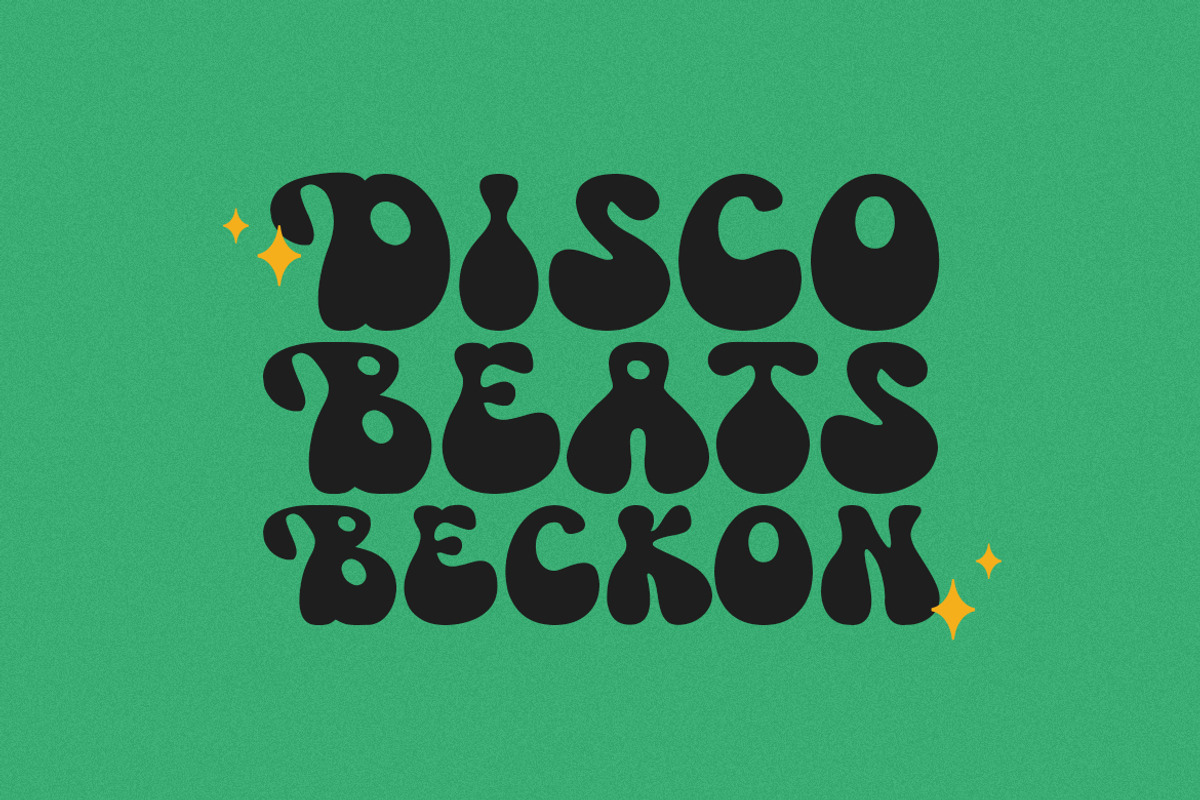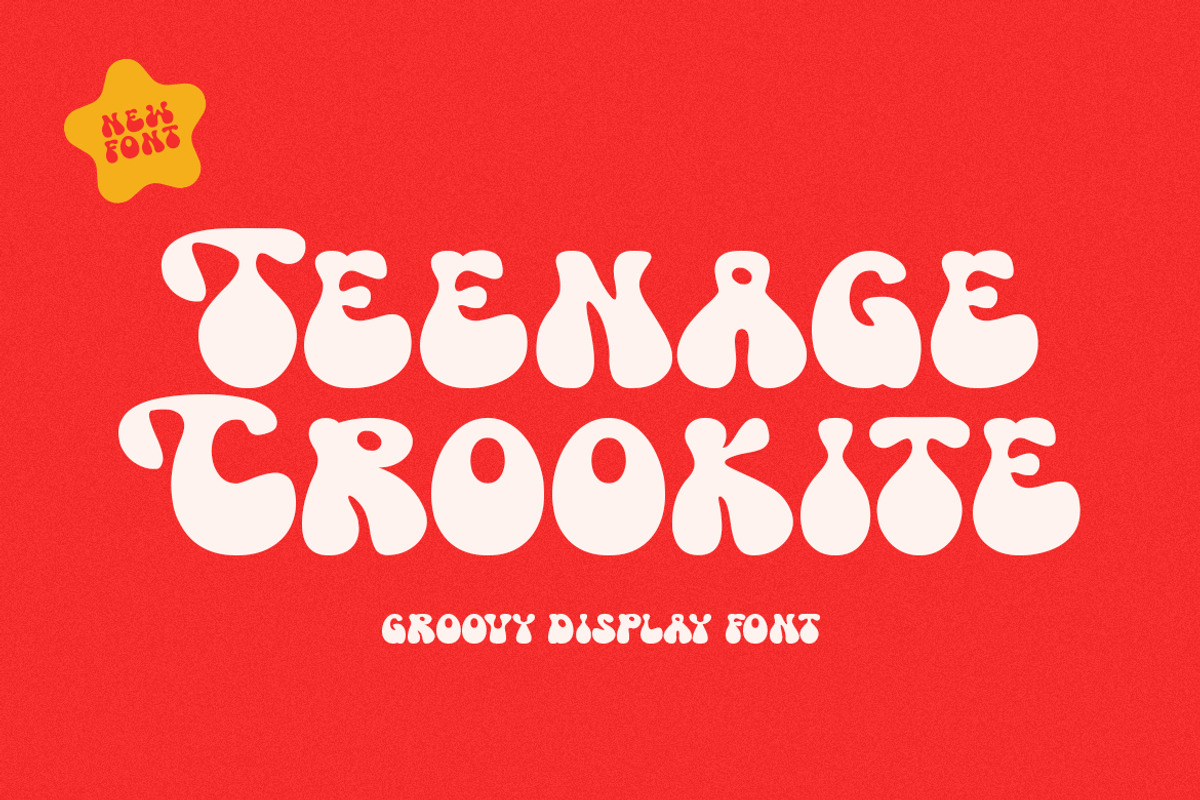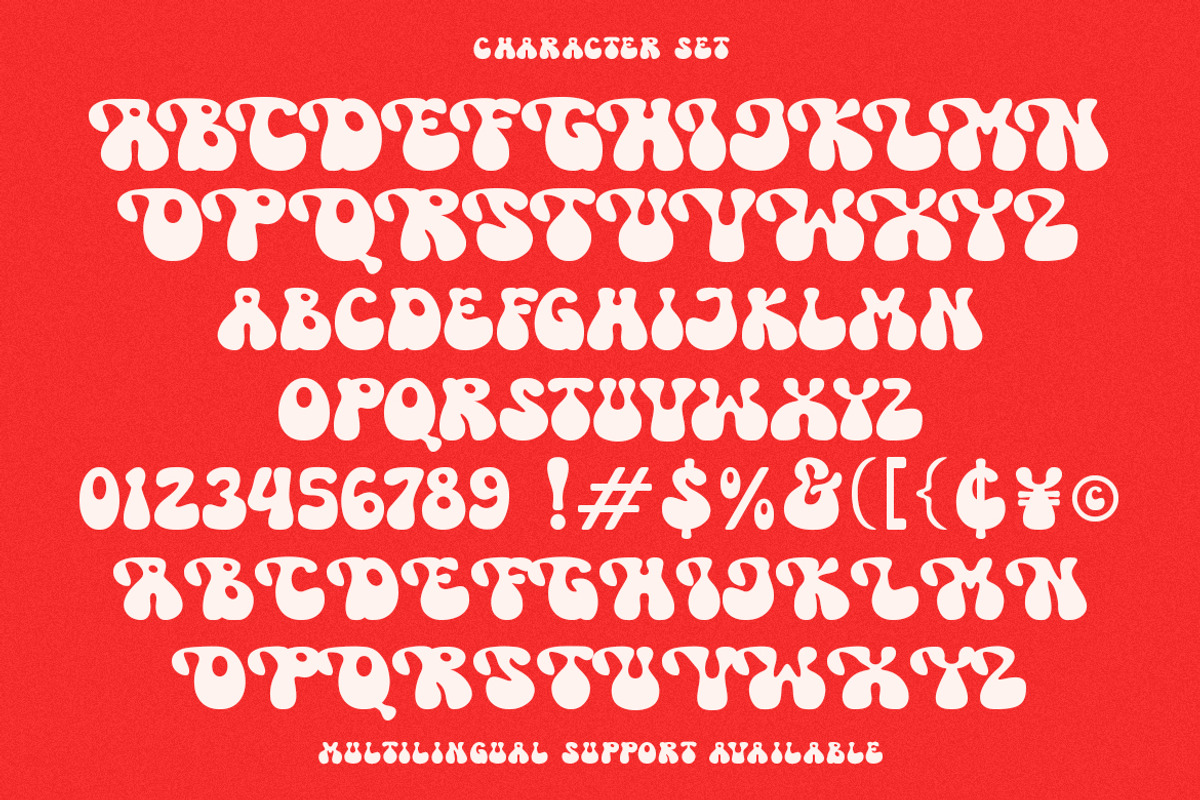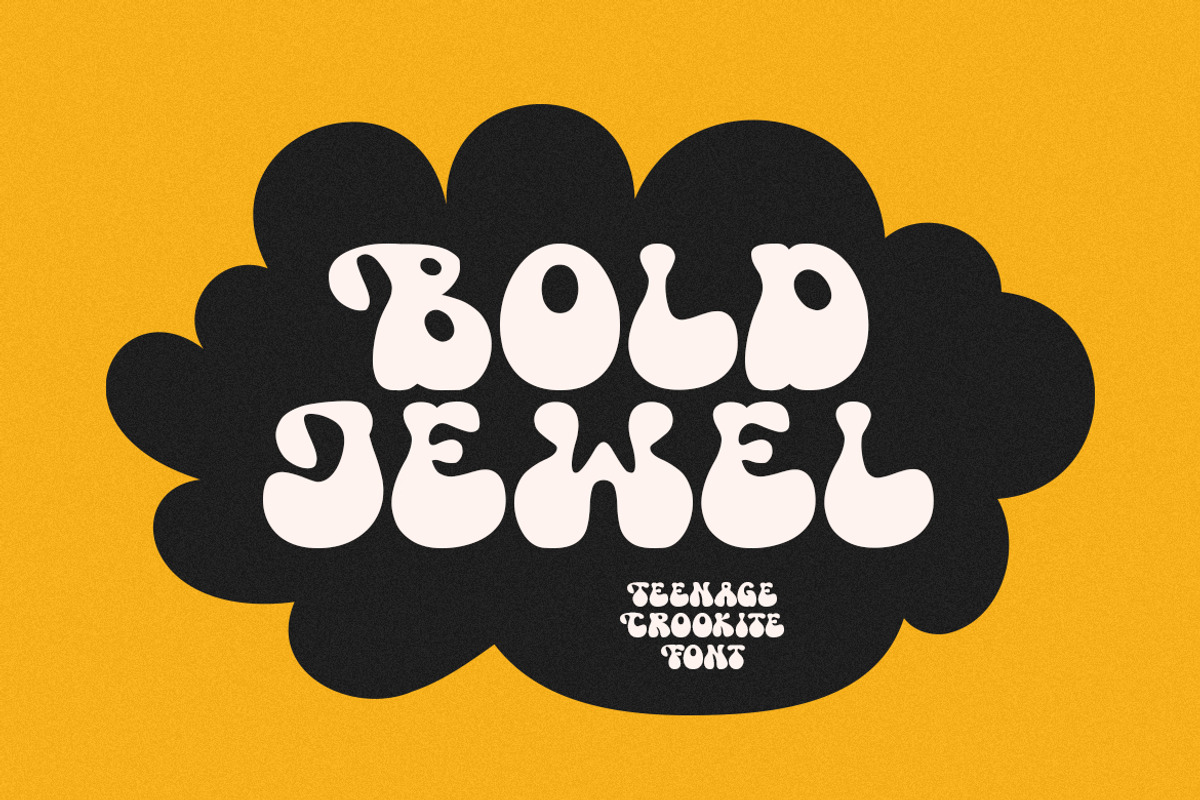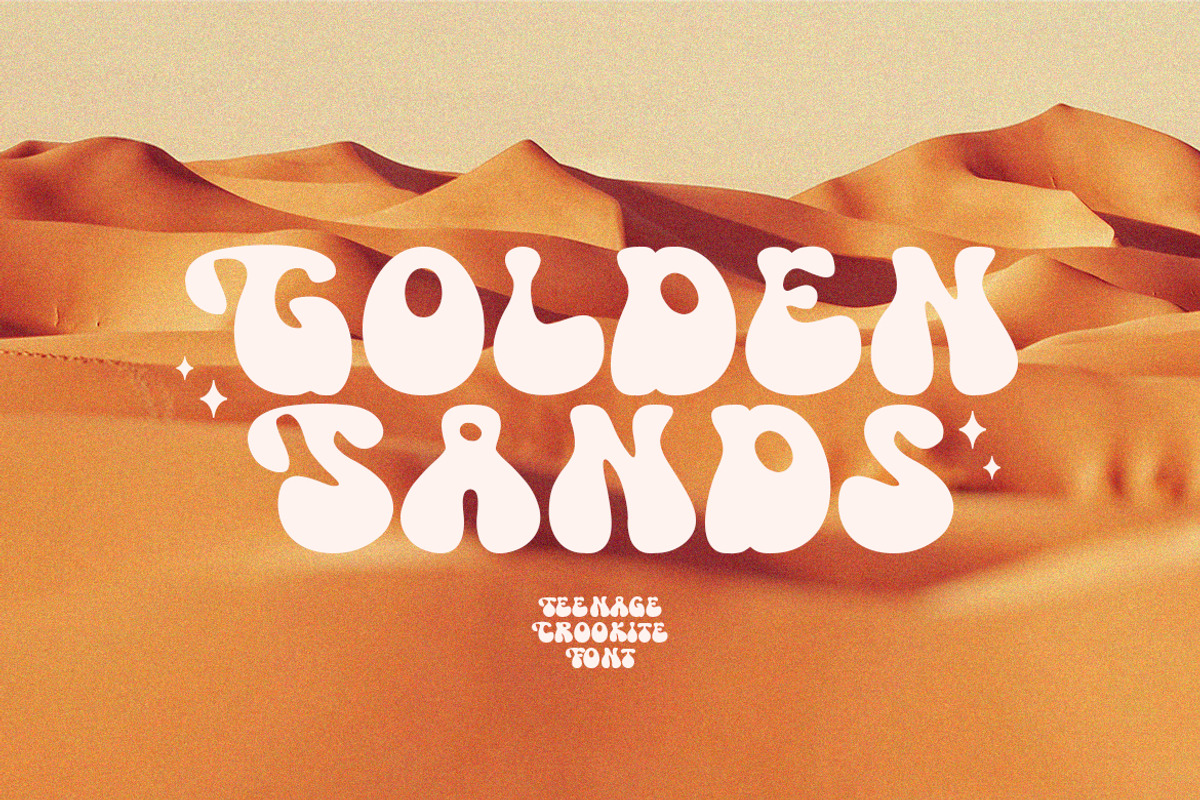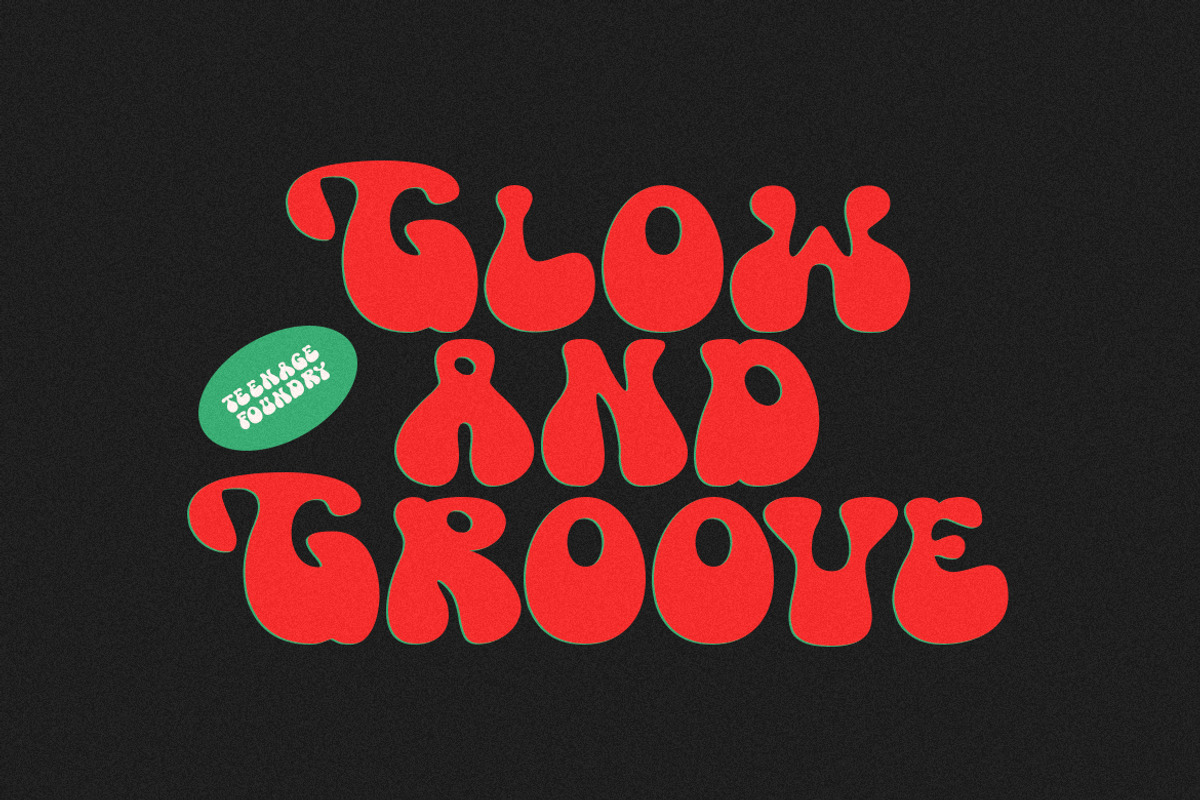
Teenage Crookite
Teenage Crookite – Groovy Display Font By Teenage Foundry
Introducing our latest font creation – a groovy typeface that’s sure to transport you back to the funky, psychedelic era of the 60s and 70s! With its bold, playful style and unique character, this font is perfect for adding a retro feel to your design projects.
This font is incredibly versatile and can be used for a range of design projects, including posters, album covers, branding, and more. Its groovy style gives it a unique character that’s sure to make an impact.